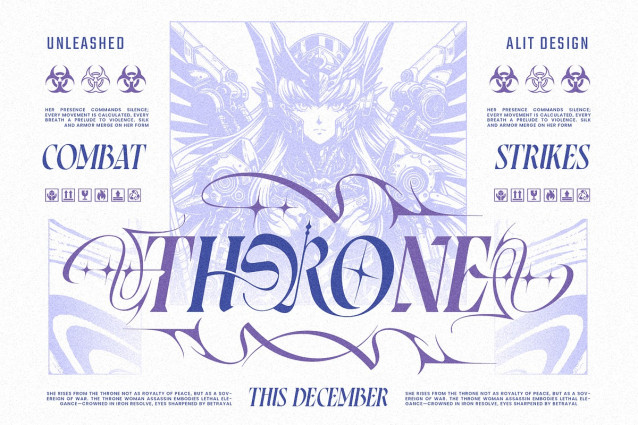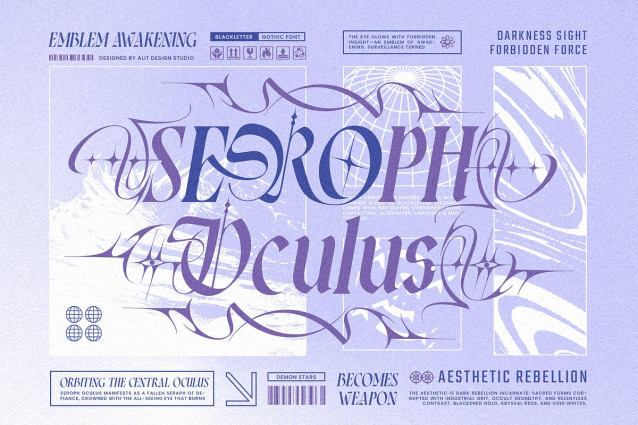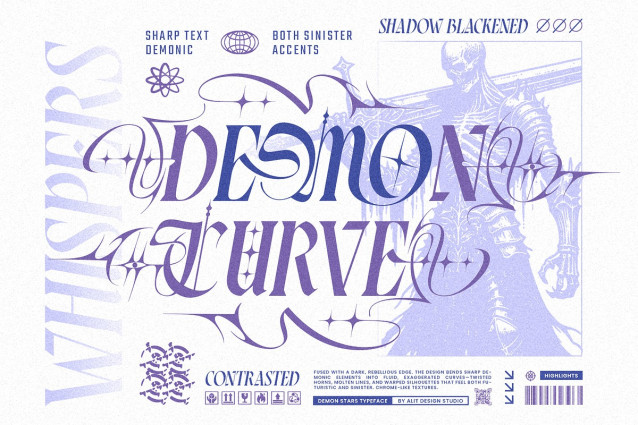
Demon Stars Font
Demon Stars Font is a high-octane Italic Blackletter typeface that bridges the gap between ancient gothic tradition and the rebellious spirit of modern streetwear. Born from the intersection of “Gate of Babylon” engraving art and contemporary Y2K grunge, this font is designed to cut through the noise.
Unlike traditional static gothic fonts, Demon Stars is built with speed and aggression. Its italicized stance gives it a sense of forward motion, while the sharp, diamond-cut terminals and decorative “star” accents add a layer of mystical complexity. It is not just a font; it is a weapon for your visual arsenal.
The Aesthetic: Wicked & Divine Demon Stars balances brutality with beauty. The strokes are bold and high-contrast, reminiscent of medieval calligraphy, yet infused with the “Acid Graphics” and “Brutalism” trends found in high-end fashion today. Whether you are aiming for a dark, demonic vibe or a heavenly, intricate look, this typeface adapts to your vision.